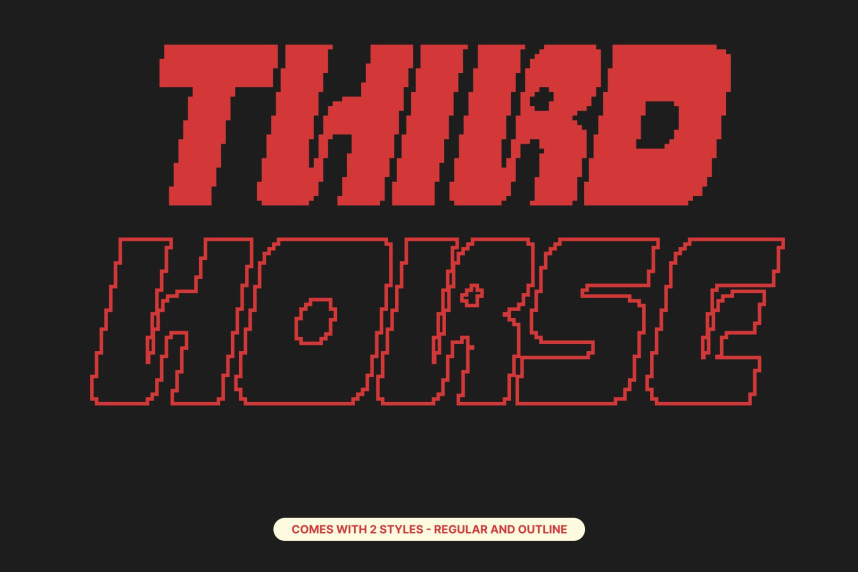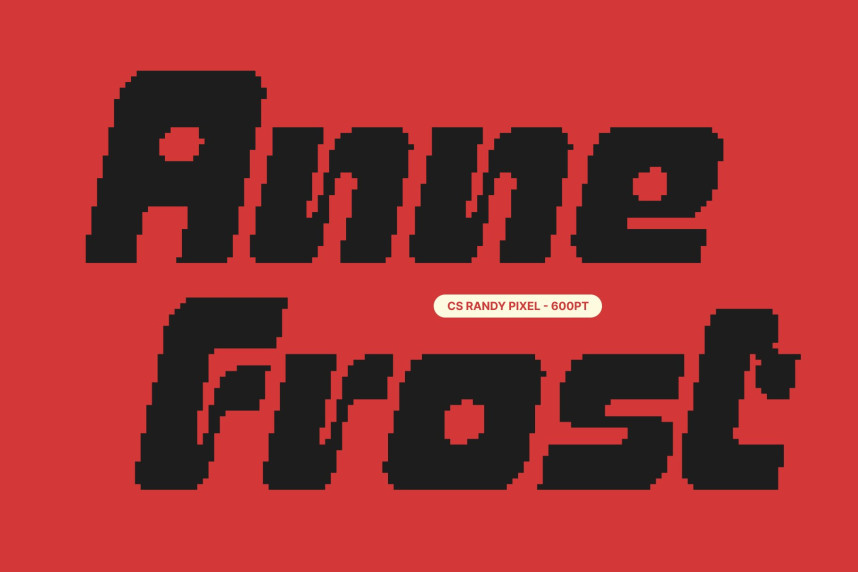
CS Randy Pixel Font
CS Randy Pixel Font – Bold Display Font with Futuristic Techno Style Modern Design with Futuristic Energy. This is a bold display font built with clean lines, strong geometry, and a striking pixel-based structure. Its modern design is infused with futuristic and Y2K aesthetics, blending digital nostalgia with a forward-looking attitude. Designed for high impact, this font ensures your typography stands out with confidence and clarity.